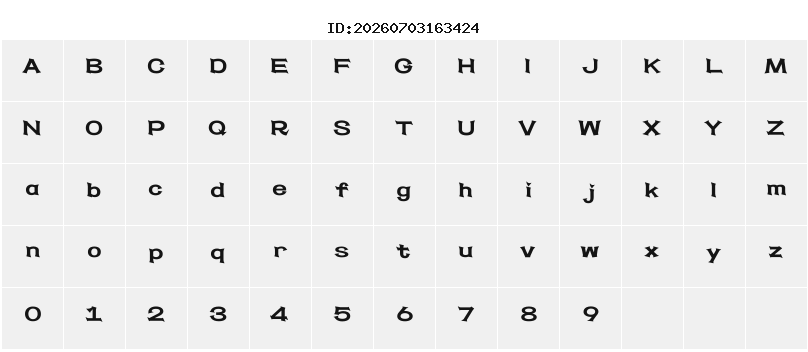
433-上首苗乡体 Preview
• Font Name: 433-上首苗乡体
• Font ID: 433-SSMiaoXiangTi:Version 4.00
• Full Font Name: 433-上首苗乡体
• Version: Version 4.00 March 30, 2026
• PostScript Name: 433-SSMiaoXiangTi
• Character Count: 7602
• Manufacturer: 上首造字
About 433-上首苗乡体.ttf
433-上首苗乡体.ttf is a modern, elegant sans-serif font designed for ultimate readability and visual harmony. Perfect for branding, headlines, web design, and print materials.